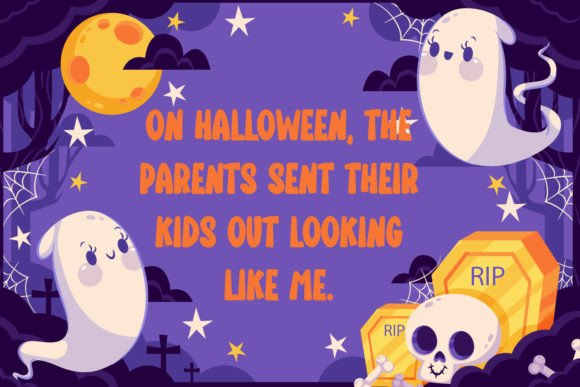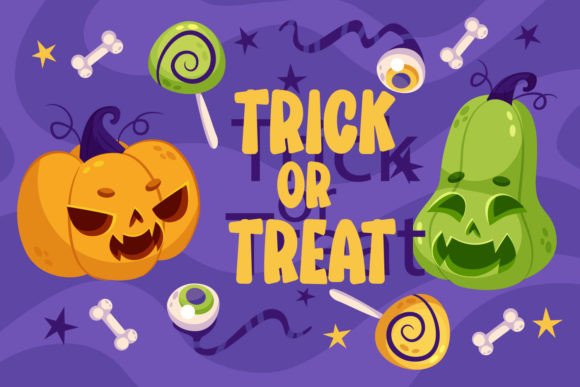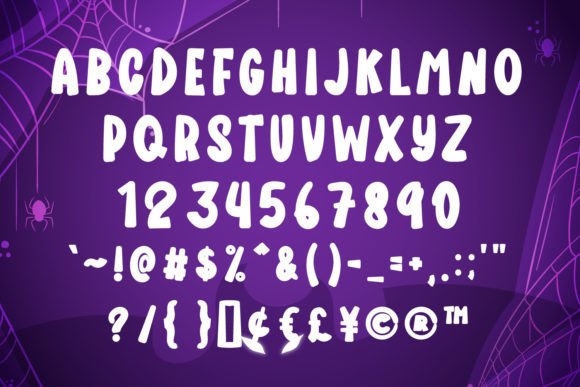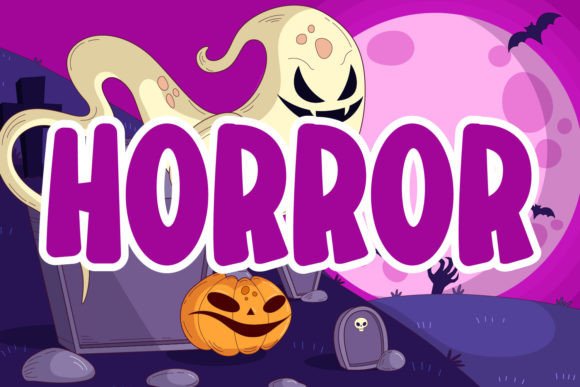
Introduction to Silent Ghost Font
Have you ever been brainstorming for the perfect design to capture the essence of a children’s party invitation, only to be stuck on finding the right font? I’m sure many designers can relate to this creative conundrum. One day, while searching for a suitable design resource, I stumbled upon the charming Silent Ghost Font, and it instantly became the perfect solution.
This delightful display font embodies the perfect blend of authenticity and fun, making it a valuable addition to any designer’s toolkit. With its cute and friendly demeanor, the Silent Ghost Font is ideal for creating high-quality designs that are sure to bring a smile to anyone’s face.
Whether you’re working on a creative project that requires a playful touch or simply looking for a free download to add some visual flair, the Silent Ghost Font is an excellent choice. Its transparent background allows for seamless integration with any design element, making it a versatile and reliable design resource.
Key Features of Silent Ghost Font
- Comes with a transparent background, allowing for easy customization and versatility in design.
- Features a large character set, including uppercase and lowercase letters, numbers, and special characters, making it suitable for a wide range of applications.
- Designed at 300 DPI resolution, ensuring crisp and clear typography even at larger font sizes.
- Unique and minimalist design aesthetic, perfect for creating a subtle yet effective visual impact in designs.
Honest Review: Silent Ghost Font
As a designer, I’m always on the lookout for high-quality design resources to elevate my creative projects. The Silent Ghost Font is one such resource that caught my attention, and I’m excited to share my honest review with you.
What works well: ✨ The Silent Ghost Font is a beautifully crafted font with a unique, eerie feel to it. It’s perfect for designs that require a touch of sophistication and mystery. The font is available for free download, making it an excellent addition to any designer’s toolkit.
- High-quality design with a transparent background, making it easy to overlay on any design
- Perfect for creative projects that require a sense of eeriness or mystery
Limitations: ⚠️ While the Silent Ghost Font is a great resource, it may not be suitable for all designs. The font’s unique style may be overwhelming in certain contexts, so be sure to use it thoughtfully.
Overall, I’m impressed with the Silent Ghost Font, and I think it’s a valuable addition to any designer’s toolkit. With its high-quality design and unique style, it’s perfect for creative projects that require a touch of sophistication and mystery.
The Silent Ghost Font is a high-quality design resource that can be used for various creative projects. It features a transparent background, making it versatile for use in different design applications.
To get the most out of the Silent Ghost Font, use it in combination with other design elements, such as graphics and colors, to create a visually appealing design.